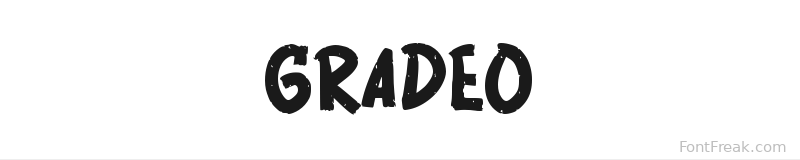
GRADEO
About GRADEO
GRADEO, designed by Wahyu Eka Prasetya, is a striking display font that captures attention with its unique character and playful curves. This font leans towards a decorative style, making it an ideal choice for projects that require a bold and expressive typeface. The strokes exhibit a medium weight, providing a balanced appearance that is neither too heavy nor too light. The contrast in the letterforms adds to its visual appeal, while the slightly irregular edges give GRADEO a handcrafted feel, enhancing its artistic charm. The generous spacing between letters allows for excellent readability, making it suitable for various applications.
This versatile font shines in specific use cases, such as wedding invitations, where its playful yet elegant style can set the perfect tone for a special occasion. It also works wonderfully for movie posters, adding a touch of creativity and flair that draws viewers in. Restaurant menus can benefit from GRADEO's distinctive look, creating an inviting atmosphere that reflects the personality of the establishment. Additionally, small business branding can leverage GRADEO to stand out in a crowded market, providing a memorable visual identity. Content creators will find it useful for social media graphics, ensuring that their posts capture attention with style.
Targeted towards graphic designers, small business owners, and content creators, GRADEO stands out due to its whimsical yet polished aesthetic. Its freeware licensing allows for easy access, making it an attractive option for those looking to elevate their design projects without breaking the bank. Whether you’re crafting promotional materials or designing personal projects, consider the GRADEO font free download to add a touch of uniqueness and flair. With its captivating design and versatility, GRADEO is a font that truly makes a statement.